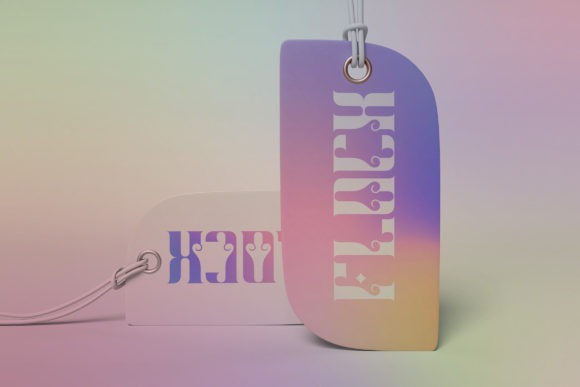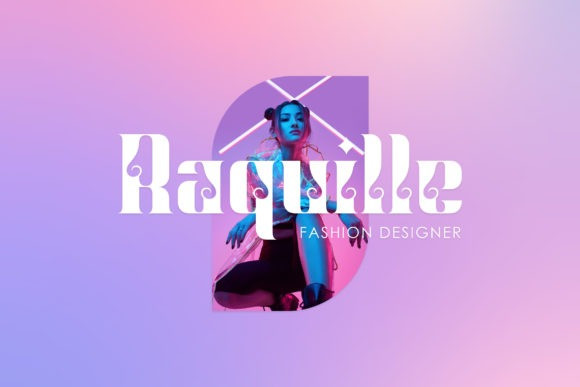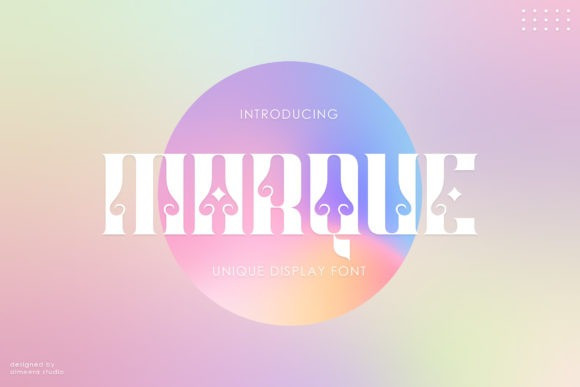
Marque Display Font
Marque Display Font is a chic, highly detailed and whimsical display font. It will add a luxury spark to any design project that you wish to create! Add it confidently to your projects, and you will love the results.